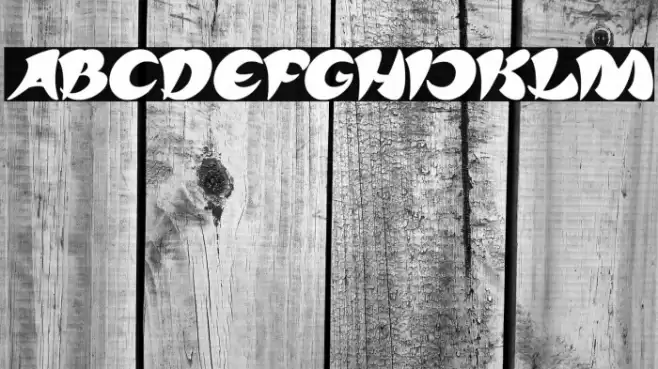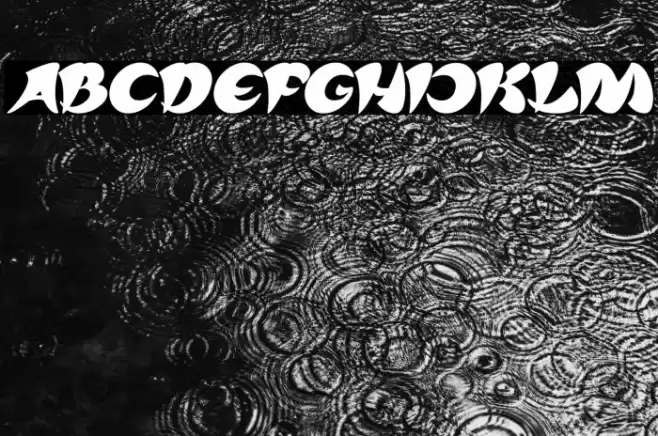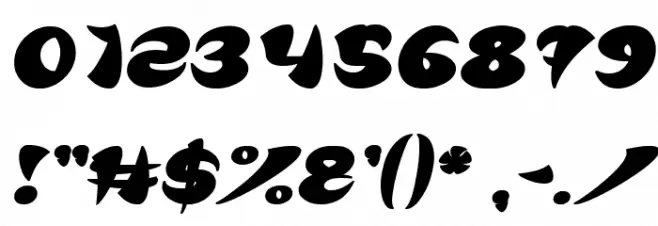
ASIA PACIFIC Bold Italic Font
ASIA PACIFIC Bold Italic Description
This font features a bold and italicized style with a distinctive, flowing design. The characters are highly stylized, with exaggerated curves and sharp angles that create a dynamic and energetic appearance. The uppercase and lowercase letters maintain a consistent design theme, with the lowercase letters mirroring the boldness of the uppercase. Numbers and special characters are equally bold and expressive, ensuring a cohesive look across all text elements. The font's unique style makes it stand out, suitable for projects that require a strong visual impact.
A bold, italicized font with dynamic curves and sharp angles from Uncategorized fonts.
- Font: ASIA PACIFIC Bold Italic
- Proposed Projects: Ideal for branding, posters, and any design needing a bold, eye-catching typeface.